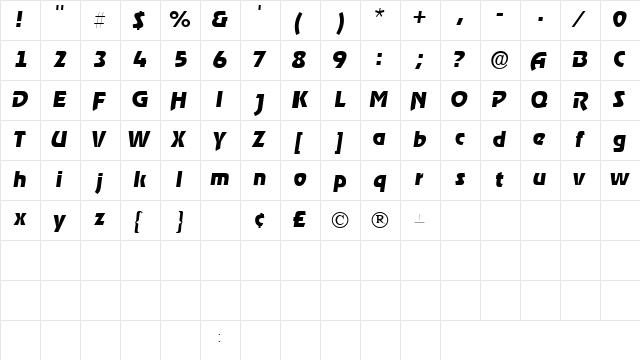
ThimbaSSK Italic
Design Context for ThimbaSSK Typeface
ThimbaSSK is a composed and adaptable typeface that performs quietly and consistently across a wide range of design contexts. The slanted form adds forward momentum and visual energy.
Pro Tip: Use ThimbaSSK for emphasis, pull quotes, and subheadings where its slanted energy can add rhythm to the layout.